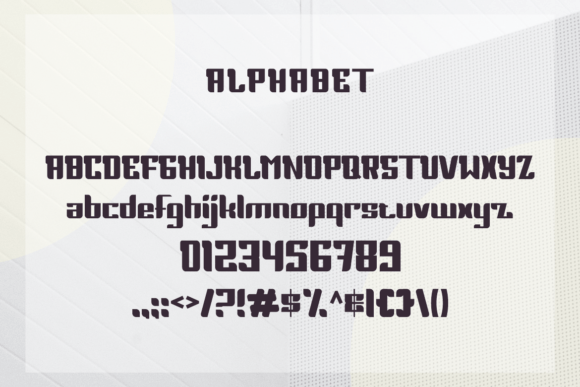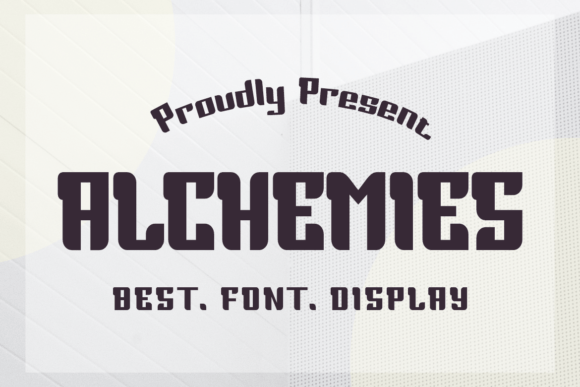
Introducing Alchemies Font: The Ultimate Slab Serif for Bold Branding
In the world of typography, a font can make or break a brand’s identity. For designers and crafters, finding the perfect font that embodies the essence of a project can be a daunting task. That’s where Alchemies Font comes in – a bold and authentic slab serif font designed to elevate your branding projects to the next level.
What is Alchemies Font?
Alchemies Font is a carefully crafted slab serif font that exudes confidence and sophistication. Its bold and sturdy design makes it perfect for a wide range of applications, from logo creation to t-shirt printing, esports, and more. With its authentic feel, Alchemies Font is sure to add a touch of professionalism to any project.
Key Features of Alchemies Font
• Bold and Authentic Design: Alchemies Font boasts a bold and authentic slab serif design that’s sure to grab attention.
• Versatility: This font is suitable for a wide range of contexts, from logos and branding to t-shirt printing, esports, and more.
• High Readability: The clear and sturdy design of Alchemies Font ensures high readability, even at smaller font sizes.
• Unique Character: With its distinctive slab serif design, Alchemies Font is sure to add a touch of personality to your projects.
Use Cases for Alchemies Font
Alchemies Font is an incredibly versatile font that can be used in a variety of contexts. Here are some use cases to get you started:
• Logo Design: Create a bold and memorable logo with Alchemies Font that will help your brand stand out.
• T-Shirt Printing: Add a touch of personality to your t-shirt designs with Alchemies Font, perfect for quotes, phrases, or slogans.
• Esports: Give your esports team or brand a professional edge with Alchemies Font, suitable for jerseys, logos, and more.
• Branding and Advertising: Use Alchemies Font to create eye-catching advertisements, brochures, and marketing materials that demand attention.
Why Choose Alchemies Font?
With so many fonts available, why choose Alchemies Font? Here are just a few reasons:
• Unique Design: Alchemies Font offers a distinctive slab serif design that’s sure to set your project apart.
• High-Quality: This font is crafted with attention to detail, ensuring a high-quality finish that’s perfect for professional projects.
• Easy to Read: The clear and sturdy design of Alchemies Font ensures that your message is communicated clearly and effectively.
• Versatile: With its wide range of use cases, Alchemies Font is an excellent addition to any designer’s toolkit.
Tips for Using Alchemies Font
To get the most out of Alchemies Font, here are some tips to keep in mind:
• Experiment with Sizes: Alchemies Font looks great at a range of font sizes, so don’t be afraid to experiment to find the perfect fit for your project.
• Pair with Other Fonts: Try pairing Alchemies Font with other fonts to create a unique and eye-catching combination.
• Use for Headlines and Titles: The bold design of Alchemies Font makes it perfect for headlines and titles – use it to add emphasis and draw attention.
In conclusion, Alchemies Font is a bold and authentic slab serif font that’s perfect for designers and crafters looking to elevate their branding projects. With its versatile design, high readability, and unique character, Alchemies Font is sure to become a staple in your design toolkit. So why wait? Download Alchemies Font today and start creating bold and memorable designs that demand attention.